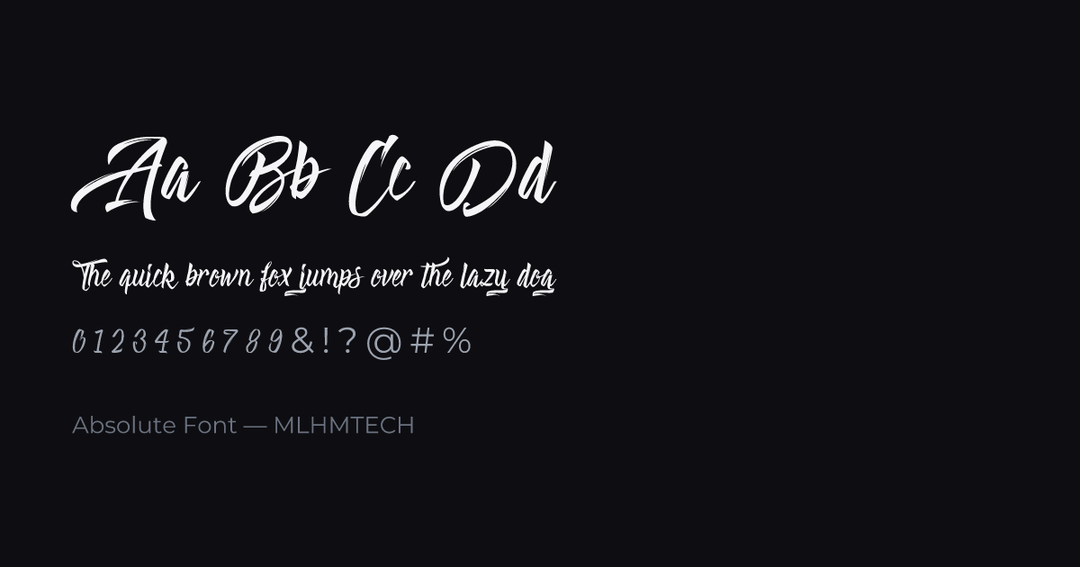
Absolute Font
Absolute is a handpicked TTF font that adds a clean, modern touch to your designs. Perfect for titles, logos, and creative projects.
Absolute is a versatile TrueType font that brings a clean and modern aesthetic to any project. Its balanced letterforms and subtle details make it suitable for a wide range of applications, from branding to editorial design.
This font is part of a curated collection of handpicked fonts, ensuring high quality and uniqueness. Whether you're working on a logo, poster, or social media graphic, Absolute will help your text stand out with style.